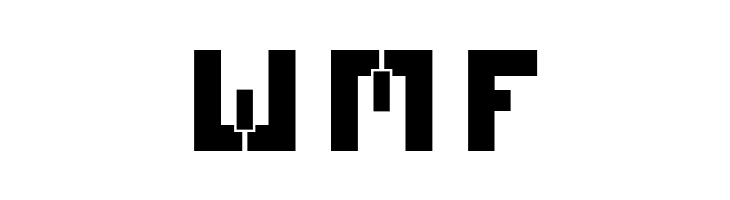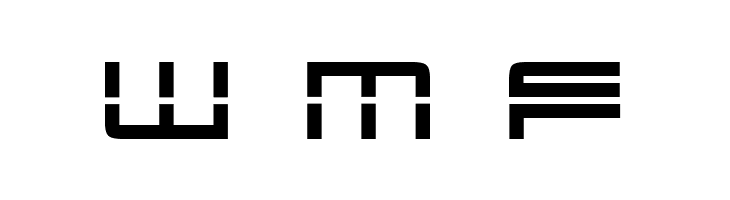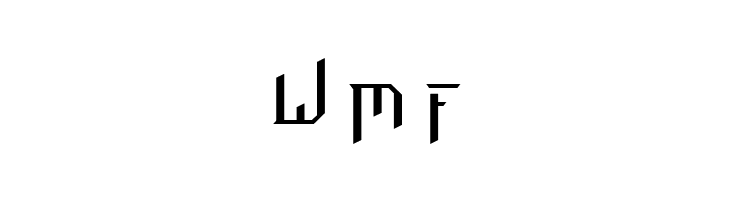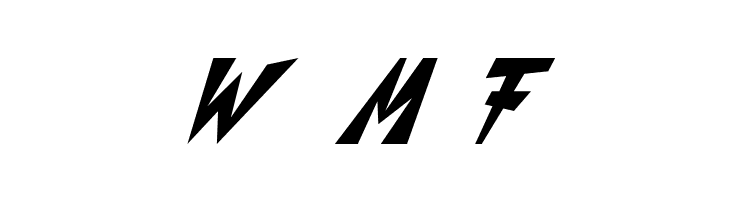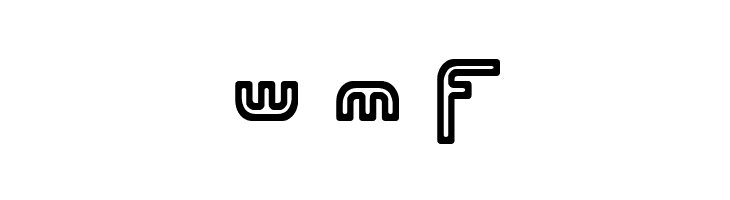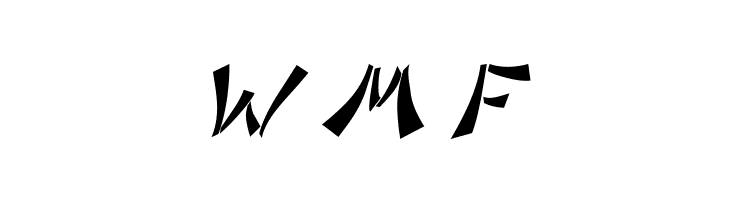
A bold, edgy font with sharp, angular strokes and an industrial feel.
A modern, geometric font with rounded edges and a clean, minimalistic design.
A bold, geometric font with a modern and playful style.
A bold, italicized font with sharp, angular strokes and high contrast, exuding energy and modernity.